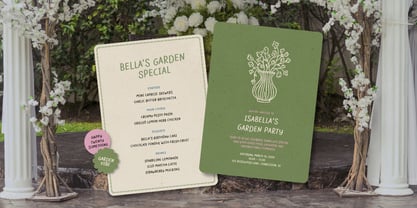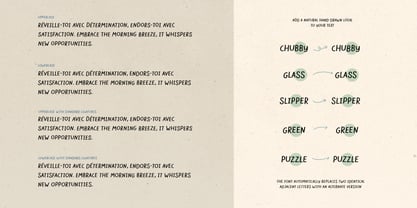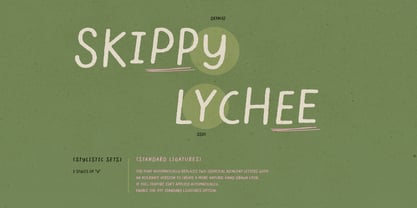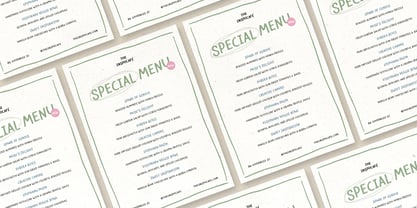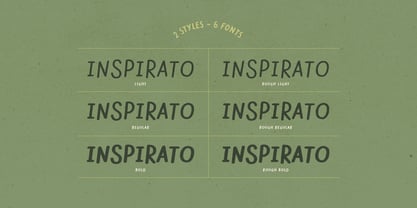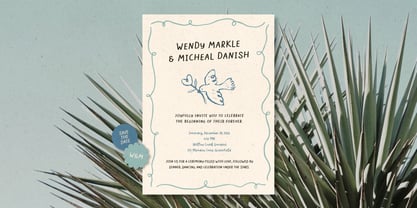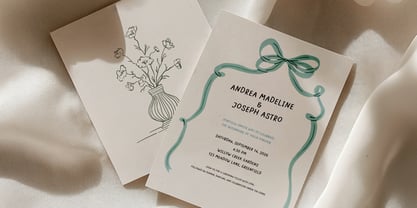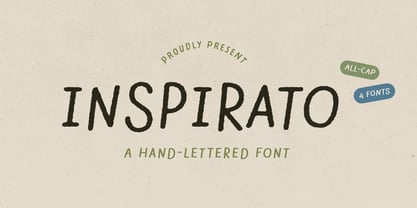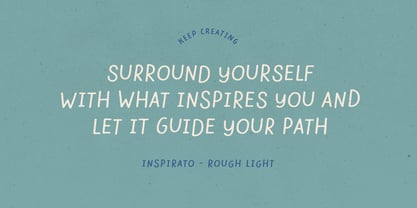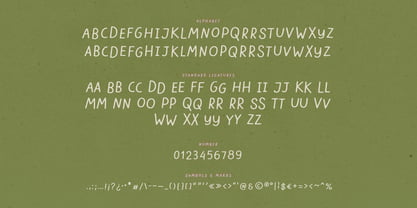
Inspirato
La familia tipográfica Inspirato fue diseñada por Hai Anh Nguyen y publicada por type peace. Inspirato contiene 6 estilos y opciones de paquete familiar. Más información sobre esta familia
INSPIRATO is a hand-lettered, all-caps font family with six fonts—Light, Regular, and Bold, each in normal and rough textures. Featuring ligatures and multilingual support, it’s perfect for adding a personal touch to any design project. The font automatically replaces two identical adjacent letters with an alternate version to create a more natural handwritten look. If this feature isn't applied automatically, enable the Standard Ligatures feature.
Inspirato